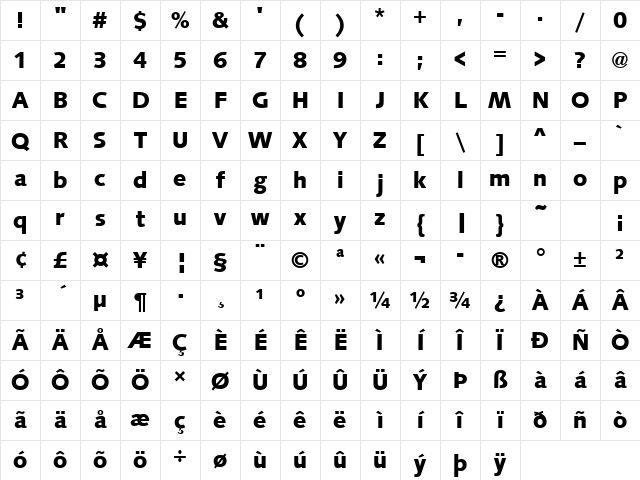
SyntaxD Bold
SyntaxD Family
Design Context for SyntaxD
SyntaxD is a composed and adaptable typeface that performs quietly and consistently across a wide range of design contexts. Its bold stroke weight gives it real presence on the page.